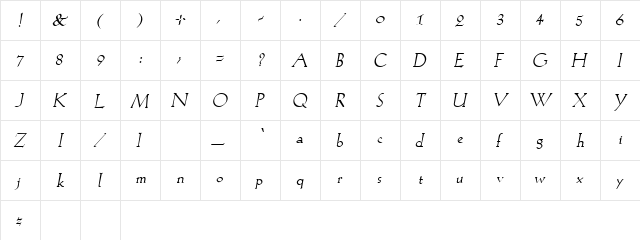
Limulus Oblique
Design Context for Limulus Typeface
Limulus is a composed and adaptable typeface that performs quietly and consistently across a wide range of design contexts. The dynamic lean of this cut emphasises speed and emphasis in any layout.
Pro Tip: Use Limulus for emphasis, pull quotes, and subheadings where its slanted energy can add rhythm to the layout.